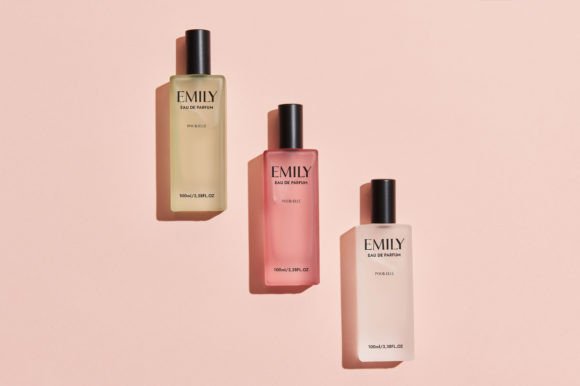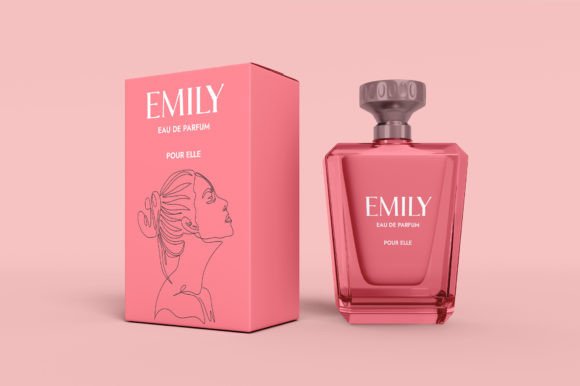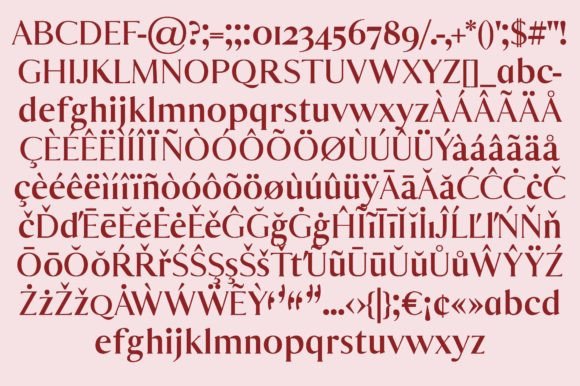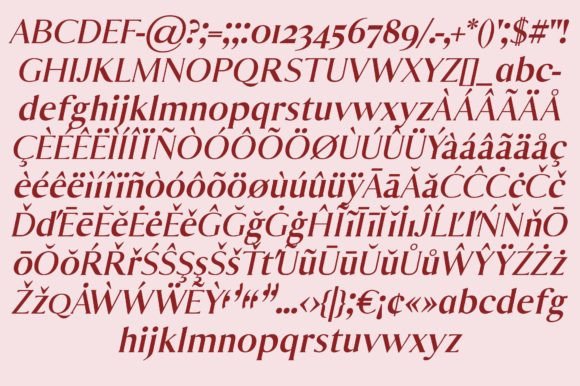
The Emily Font: A Designer’s New Best Friend
I still remember the design project that led me to discover the Emily font. I was working on a luxury perfume brand’s packaging, and my client was adamant that the font had to be elegant, precise, and convey a sense of high-end quality. I scoured the internet, tried out countless fonts, but nothing seemed to fit the bill. That was until I stumbled upon Emily – a romantic, clean, and minimalist serif font that stole my heart. In this article, I’ll share my experience with Emily, its features, and how to make the most of it in your designs.
An Honest Review of Emily Font
What I Love About Emily ✨
- ✅ Elegant and precise design, perfect for high-end branding and packaging
- ✅ Clean and minimalist aesthetic, versatile for various design applications
- ✅ Supports OpenType features, allowing for creative experimentation
- ✅ Extensive glyph library, including stylistic alternates and ligatures
- ⚠️ Limited availability of condensed or expanded styles, which might limit its use in certain projects
- ⚠️ Some users might find the font too delicate for body text, best used for titles and headings
The Story Behind Emily Font
Emily font was designed with the intention of creating a clean, elegant, and versatile serif font. The designer aimed to craft a font that would be perfect for high-end branding, packaging, and titling, while also being legible and precise. With its extensive glyph library and OpenType features, Emily font has become a popular choice among designers.
| What is Emily font best used for? | Emily font is perfect for packaging design, perfume design, titling, cosmetics design, website banners, and more. |
| Is Emily font suitable for body text? | While Emily font is elegant and precise, it might be too delicate for body text. It’s best used for titles and headings. |
| Does Emily font support OpenType features? | Yes, Emily font supports OpenType features, including stylistic alternates, ligatures, and glyphs. |
In conclusion, Emily font is a versatile and elegant serif font that’s perfect for designers, crafters, and creative hobbyists. Its clean and minimalist design makes it suitable for various design applications, from packaging to titling. With its extensive glyph library and OpenType features, Emily font is sure to become a fundamental design choice in your font library.